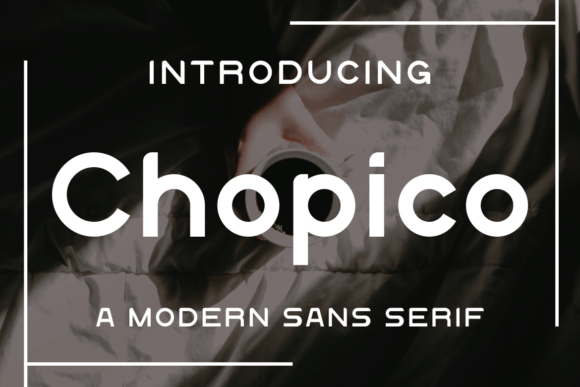
Harness the visual power of Chopico, the modern and natural sans serif font that will transform your designs into captivating masterpieces. Its clean, crisp lines create a sense of elegance and sophistication, while its understated personality allows your content to shine. Whether you're creating marketing materials, crafting social media posts, or designing logos, Chopico will elevate your creations to new heights of professionalism and allure.
Step into a world of visual delight with Chopico, the font that brings your imagination to life. Its smooth curves and delicate edges exude a sense of grace and fluidity, making it the perfect choice for adding a touch of charm and elegance to your designs. Let the beauty of Chopico's letterforms captivate your audience and leave a lasting impression.
Chopico's versatility knows no bounds. From sleek and contemporary designs to warm and inviting aesthetics, Chopico seamlessly adapts to any project, like a chameleon of creativity. Its carefully crafted glyphs ensure crisp and clear text, even in the most intricate layouts, making it ideal for both digital and print applications.
Unleash your creative potential with Chopico, the font that empowers you to make a statement. Its ability to capture attention and leave a lasting impression makes it an essential tool for designers seeking to create truly unforgettable experiences. Embrace the magic of Chopico and watch as your designs take center stage, captivating hearts and minds.